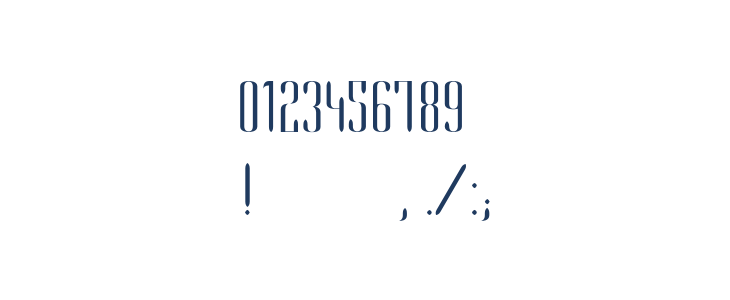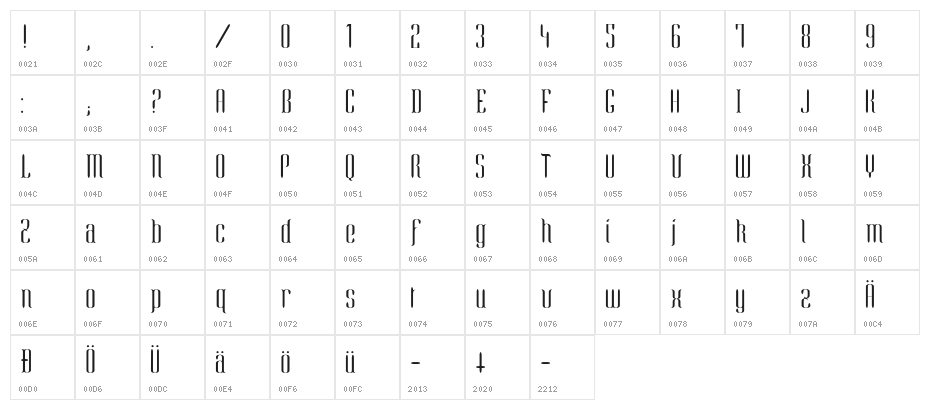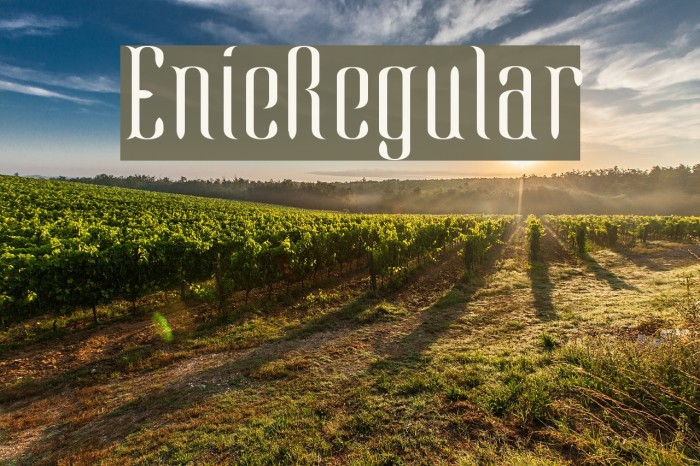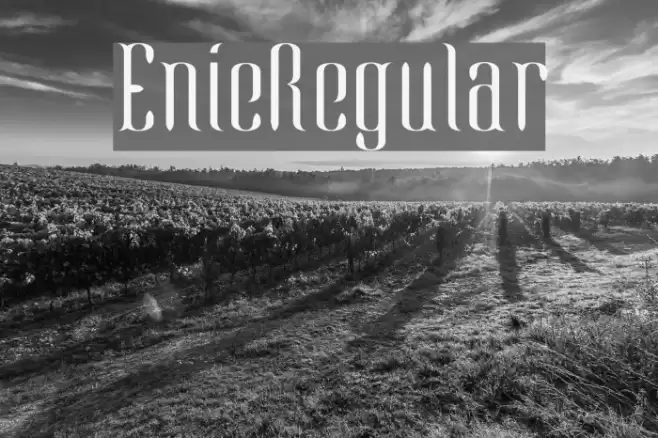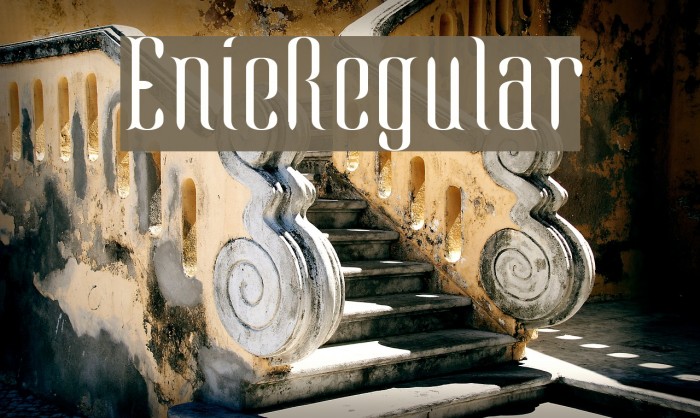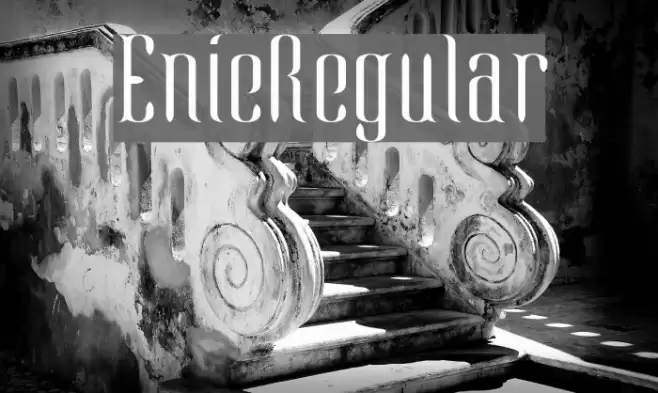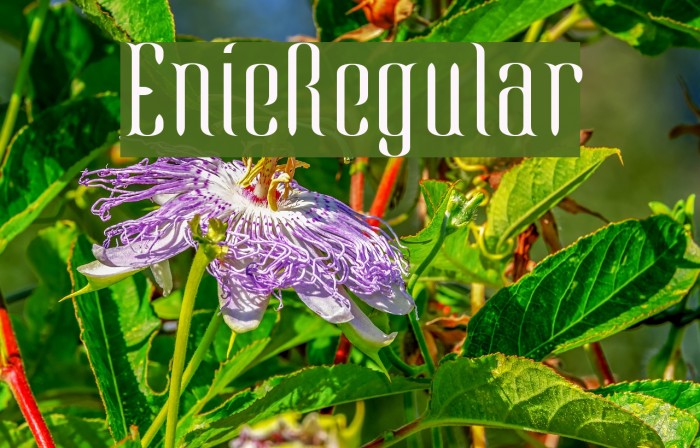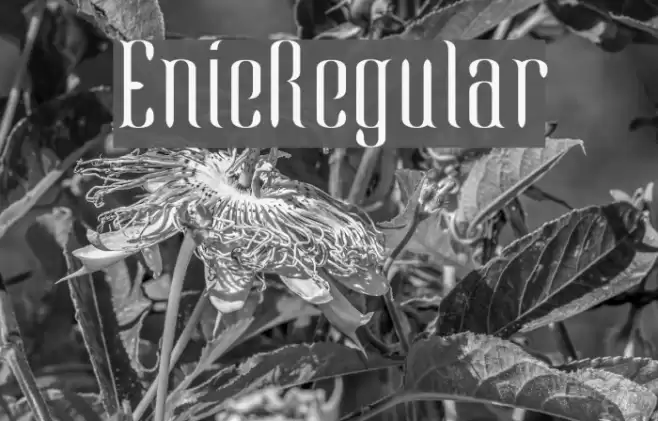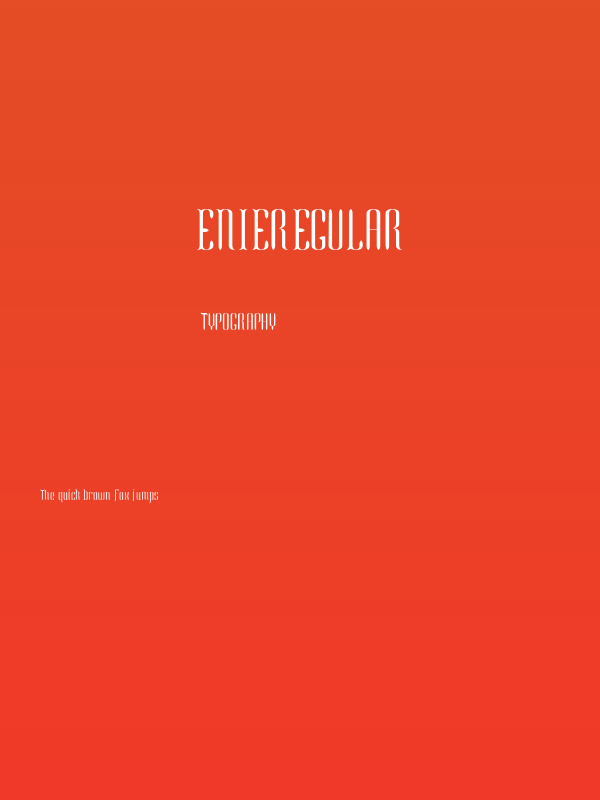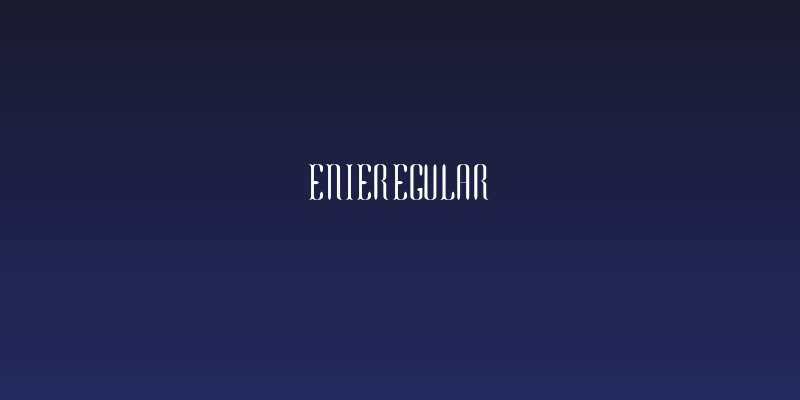
EnieRegular Font
EnieRegular Description
This font features a unique blend of modern and vintage styles, characterized by its tall, narrow letterforms with sharp, angular serifs. The uppercase letters exhibit a strong vertical emphasis, while the lowercase letters maintain a consistent height, creating a harmonious balance. The numerals are distinct and easily readable, with a slight curvature that adds a touch of elegance. Special characters are designed to complement the overall aesthetic, making this font versatile for various design needs. The consistent stroke width throughout the characters provides a clean and polished appearance.
| Proposed Projects | Ideal for branding, editorial design, and packaging where a sophisticated yet modern look is desired. |